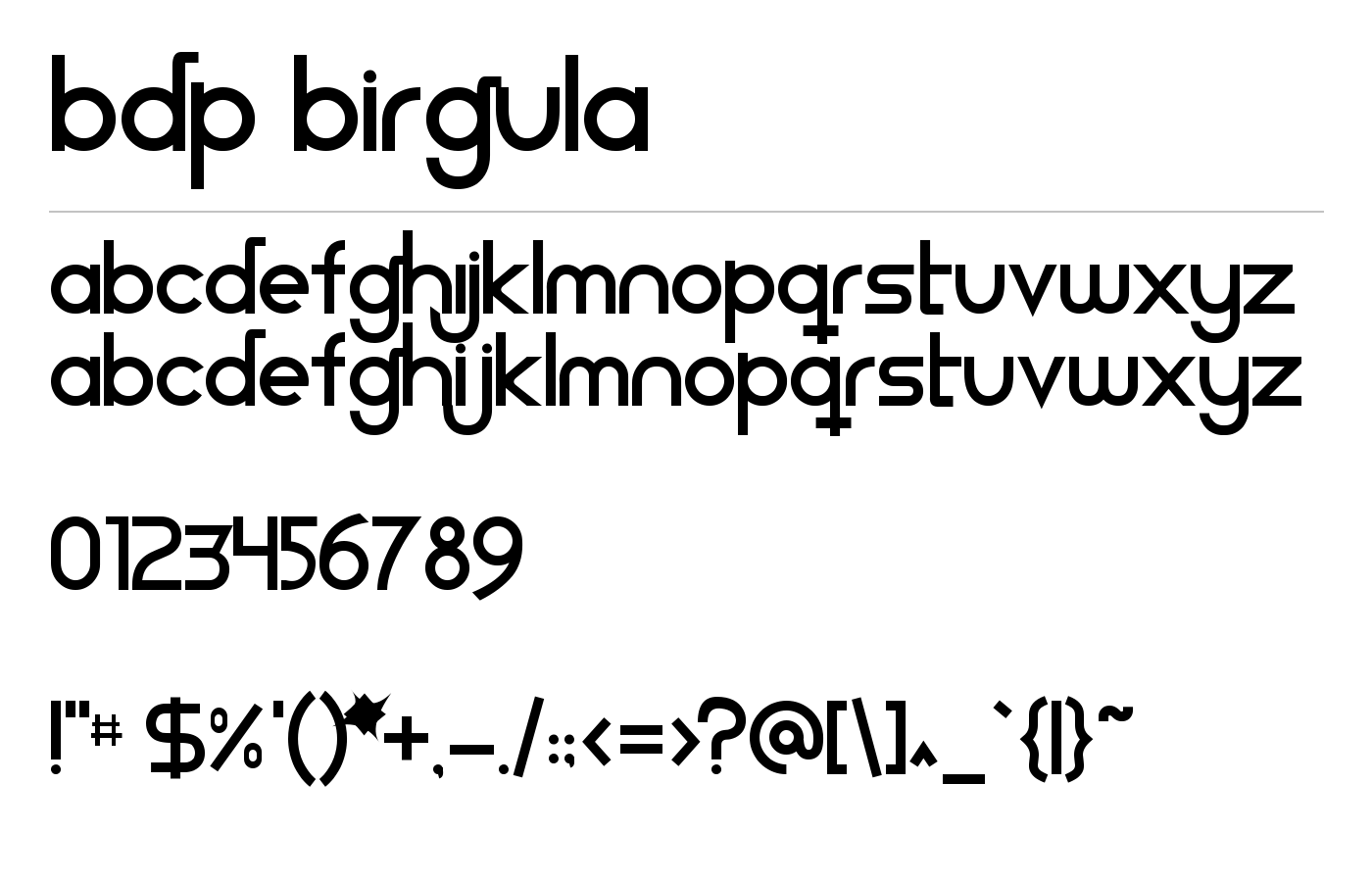
BDP Birgula is a modern sans serif font with a sleek and geometric design, featuring clean, consistent stroke weights and a relatively tall x-height that enhances readability. Its unique letterforms, such as the rounded terminals and distinctive lowercase "g" and "q", give it a contemporary and friendly personality, making it ideal for branding, editorial headlines, and digital interfaces seeking a stylish yet approachable look. This font works well in projects that require clarity and a modern vibe without sacrificing character and warmth.
BDP Birgula Font
About BDP Birgula Font
| Designer | Álvaro Thomáz |